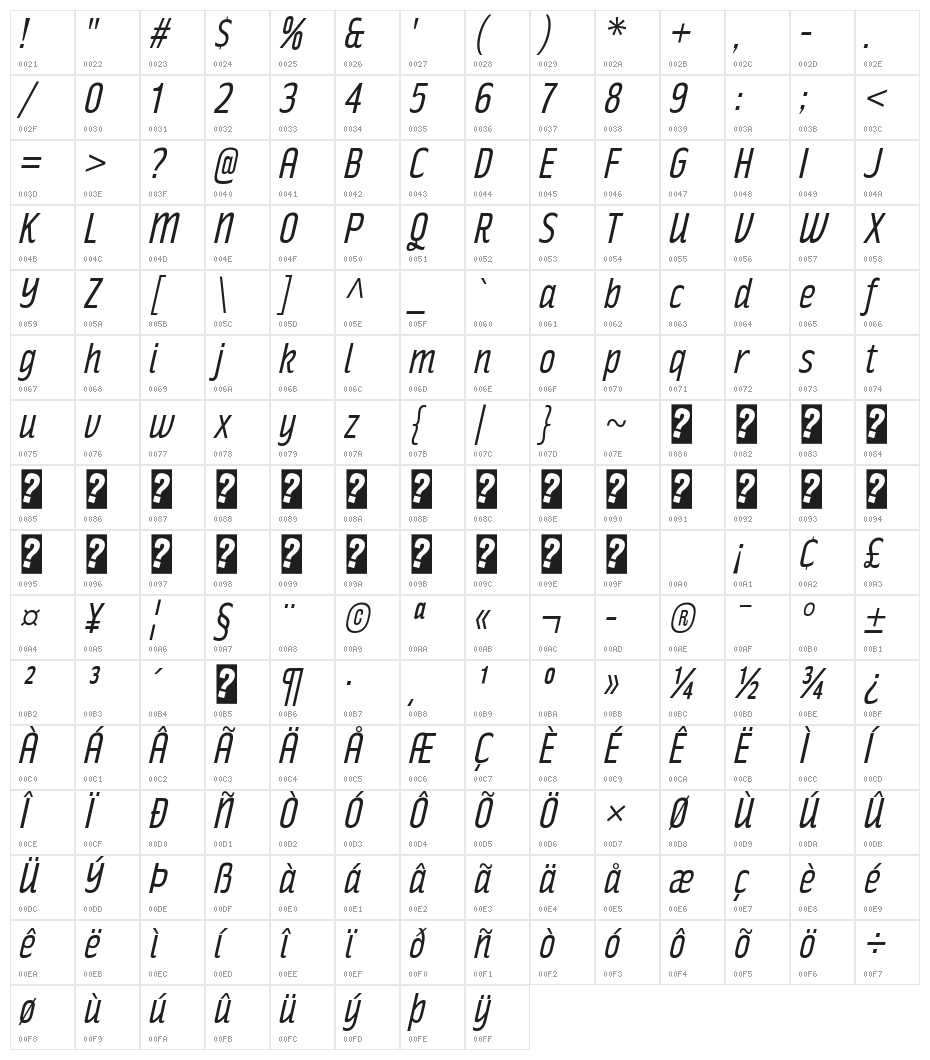
RakeslyBk-Italic Font
RakeslyBk-Italic Description
This font features a sleek and modern italic style, characterized by its smooth curves and slightly condensed letterforms. The characters exhibit a uniform stroke width, providing a clean and consistent appearance across both uppercase and lowercase letters. The numerals are well-proportioned, aligning seamlessly with the overall aesthetic. Special characters are distinct and maintain the font's elegant flow. This typeface is designed to convey a sense of sophistication and dynamism, making it suitable for a variety of design applications.